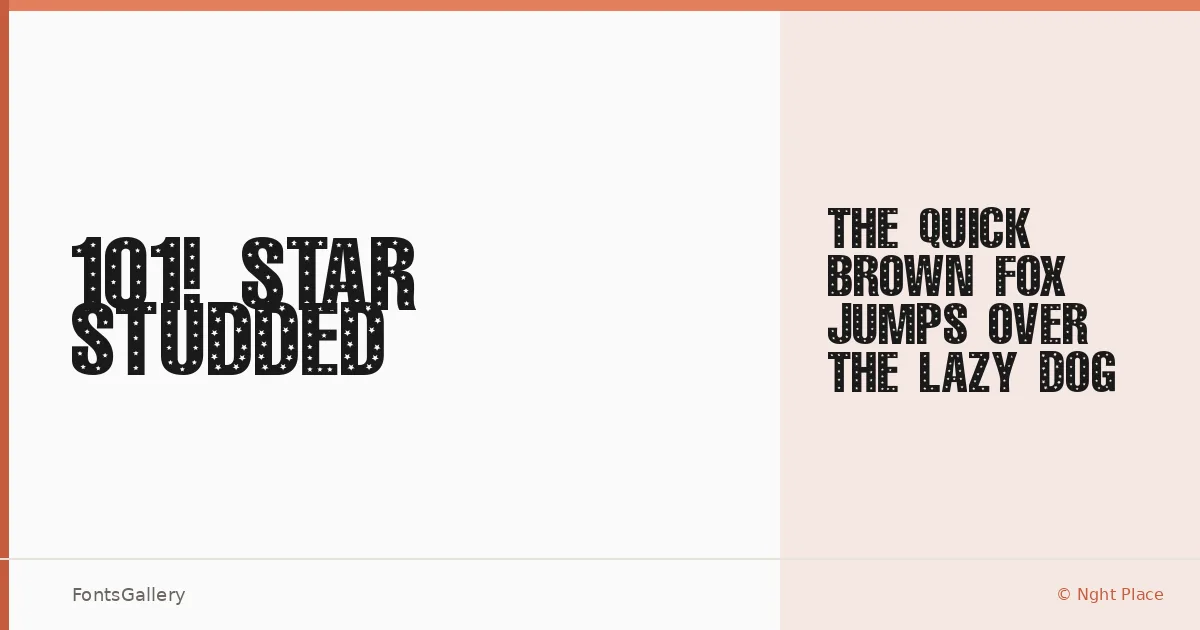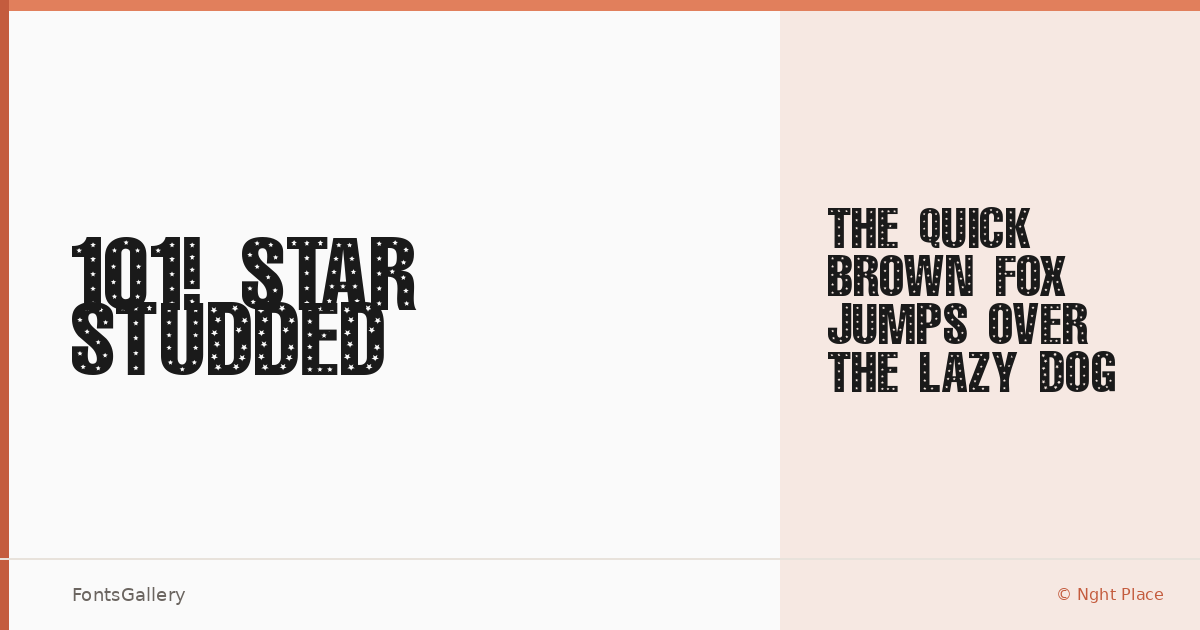
About 101! StaR StuDDeD Font
There is something deliberately rough about this face — the letterforms carry a grunge sensibility that reads as aged, worn, and intentionally imperfect. Released by Nght Place, it arrives as a single Regular cut in TTF format, built to hit hard at display sizes rather than settle into running text.
This is decorative type with a rustic, vintage attitude — the kind of lettering that belongs on a poster or a band tee, not a business report. The bold, irregular character shapes suggest something hand-pressed or distressed, giving it an organic weight that clean geometric faces simply cannot replicate. That single Regular style is enough, because the design does not ask for subtlety; it asks for presence.
It earns its place in branding, logo work, headline settings, poster layouts, and T-shirt design — anywhere the brief calls for a raw, expressive mark rather than refinement. Pair it against the clean authority of Helvetica or Aileron to let the contrast do the work, or reach for Canela, Abrade, or Anglecia Pro when the surrounding design leans editorial and you want something softer to balance the grit.